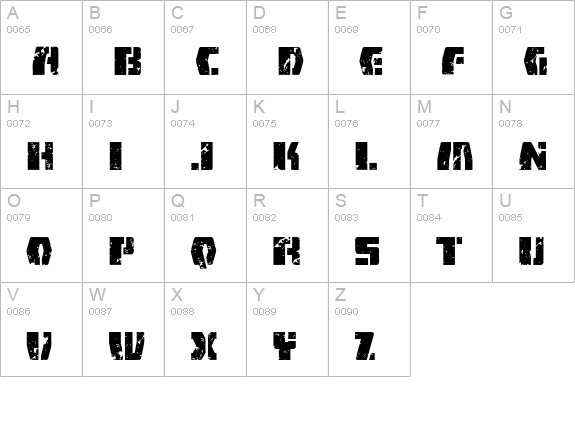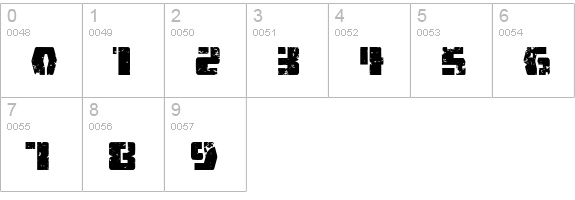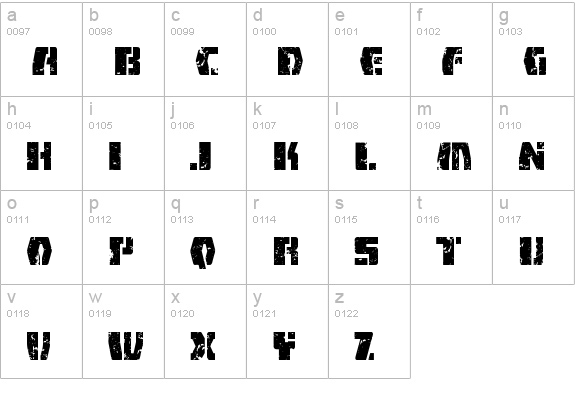
FireFight BB is a free for personal use font in the Modern > Stencil category. It has been downloaded 23 times and is available for Windows, Mac and Linux.
FireFight BB is a striking and bold font that encapsulates the intense and fiery passion of firefighting. With its strong and angular letterforms, this font commands attention and demands to be noticed. Each character is meticulously crafted to evoke a sense of power and resilience, perfectly capturing the spirit of those who risk their lives to protect others. This font is not only visually captivating, but it is also freely available to download at FontsMarket.com. Whether you're a graphic designer looking to add a touch of boldness to your creations or a firefighter searching for a font that embodies your profession, FireFight BB is the perfect choice. Its versatility allows it to be used in various design projects, from posters and logos to merchandise and more. With FireFight BB, you can convey strength, courage, and determination in your designs. The bold and impactful nature of this font is ideal for conveying urgency or emphasizing important messages. Its distinctive style ensures that your designs will stand out and leave a lasting impression. Don't miss out on the opportunity to download FireFight BB for free at FontsMarket.com. This font is a true gem for anyone seeking a visually captivating and impactful typeface. Whether you're a professional designer or simply a font enthusiast, FireFight BB is a must-have addition to your collection. So, unleash your creativity and let FireFight BB ignite your design projects with its powerful presence.